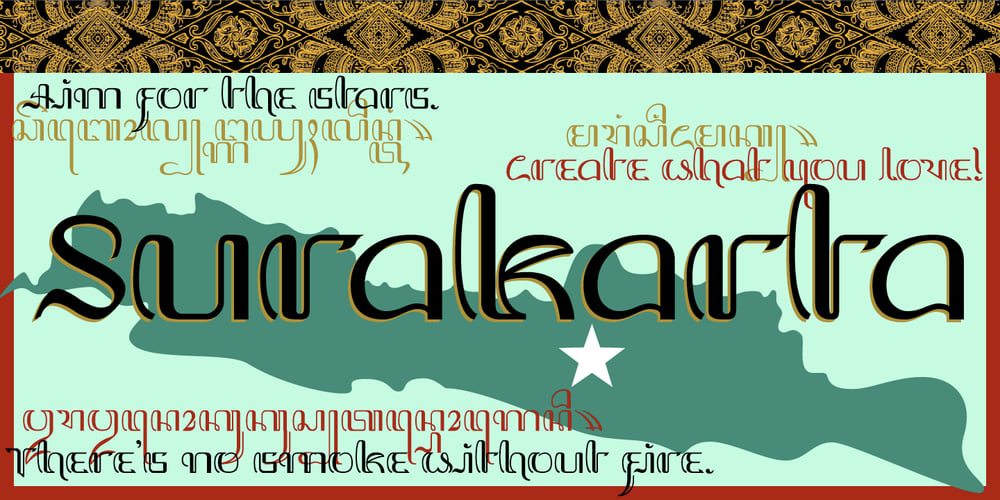
Surakarta Font Family was designed by Martin L. Parker and published by Parquillian Design. Surakarta contains 1 styles and family package options. Surakarta is a display face of western characters with numerous optional ligatures modeled after the graceful Javanese alphabet still taught in many schools on the island of Java in Indonesia, though it has been replaced by the latin alphabet for most everyday purposes. This is the second in Parquillian Design’s series of fonts inspired by some of the beautiful lesser-known native scripts of Southeast Asia.